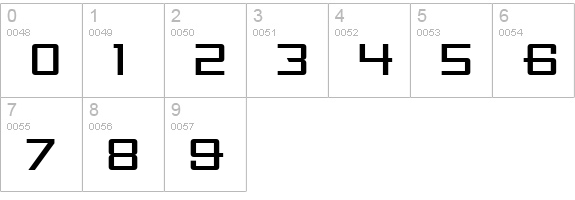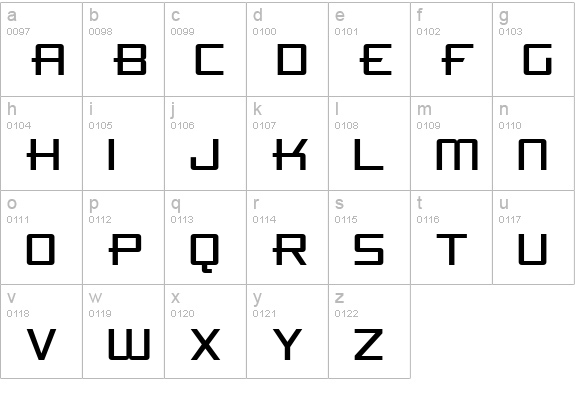
FlywheelSquare Font Details
Introducing FlywheelSquare font, a modern and versatile typeface that combines sleek lines with a touch of geometric flair. This font is perfect for a wide range of design projects, from logos to posters to branding materials. With its clean and sharp aesthetic, FlywheelSquare font exudes a sense of sophistication and professionalism. What sets FlywheelSquare font apart is not only its striking design, but also the fact that it is completely free to download. Yes, you read that right - this high-quality font is freely available for you to use in your personal and commercial projects. Simply head over to FontsMarket.com to get your hands on this fabulous font and start creating stunning designs today. Don't miss out on the opportunity to elevate your designs with FlywheelSquare font - download it now and let your creativity soar!